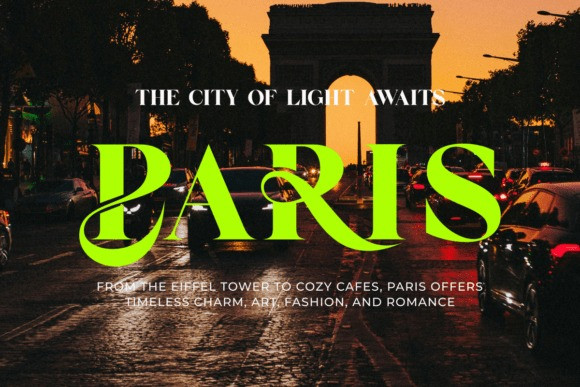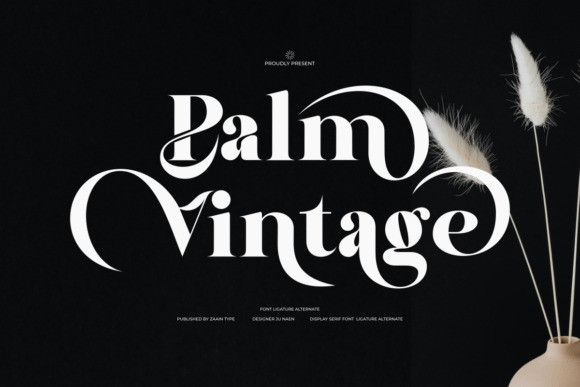
Palm Vintage Font
Palm Vintage Font Step into a world of timeless glamour with Palm Vintage, an exquisite display serif font that blends mid-century nostalgia with modern sophistication.
This typeface is defined by its dramatic contrast between thick and thin strokes and its magnificent, flowing ligatures that transform simple text into a custom piece of art. The Palm Vintage font is a premier choice for “editorial-chic” projects, making it the definitive font for luxury magazine covers, upscale restaurant menus, and high-fashion branding.
The Palm Vintage typeface is designed to be the centerpiece of any composition. It features a variety of alternates and decorative ligatures that allow you to customize the flow of your typography for a truly bespoke look. To enhance the Palm Vintage font, pair it with classic noir-style photography or minimalist layouts to let the ornate serifs take center stage.
Whether you are designing a logo for a boutique hotel, a premium wine label, or a sophisticated event invite, this font brings a layer of heritage and high-end elegance that is both bold and undeniably graceful.